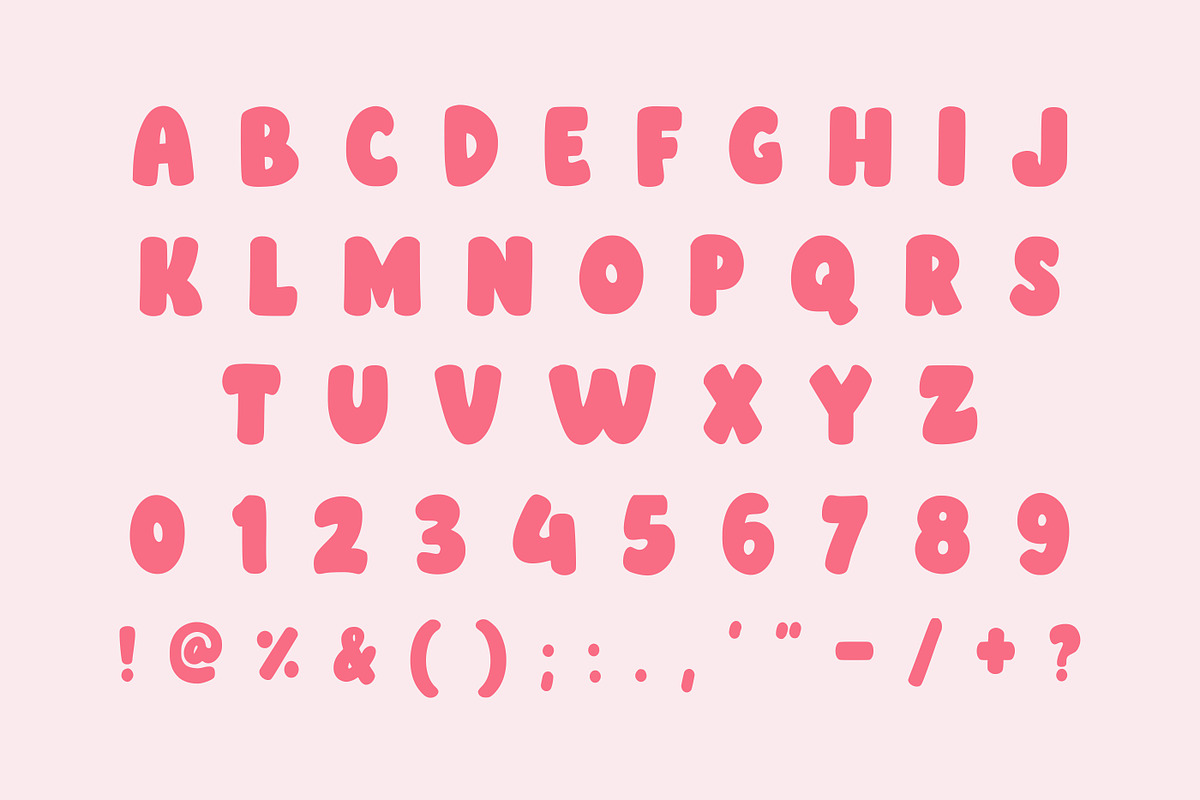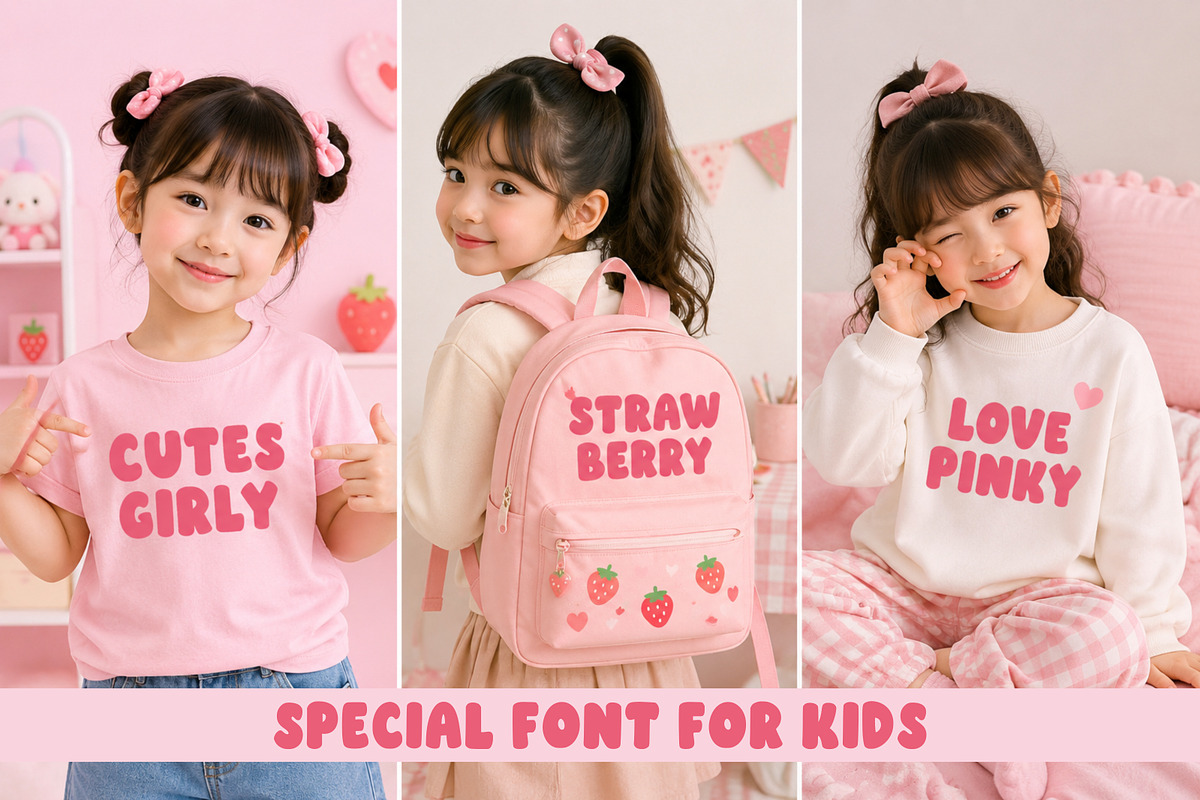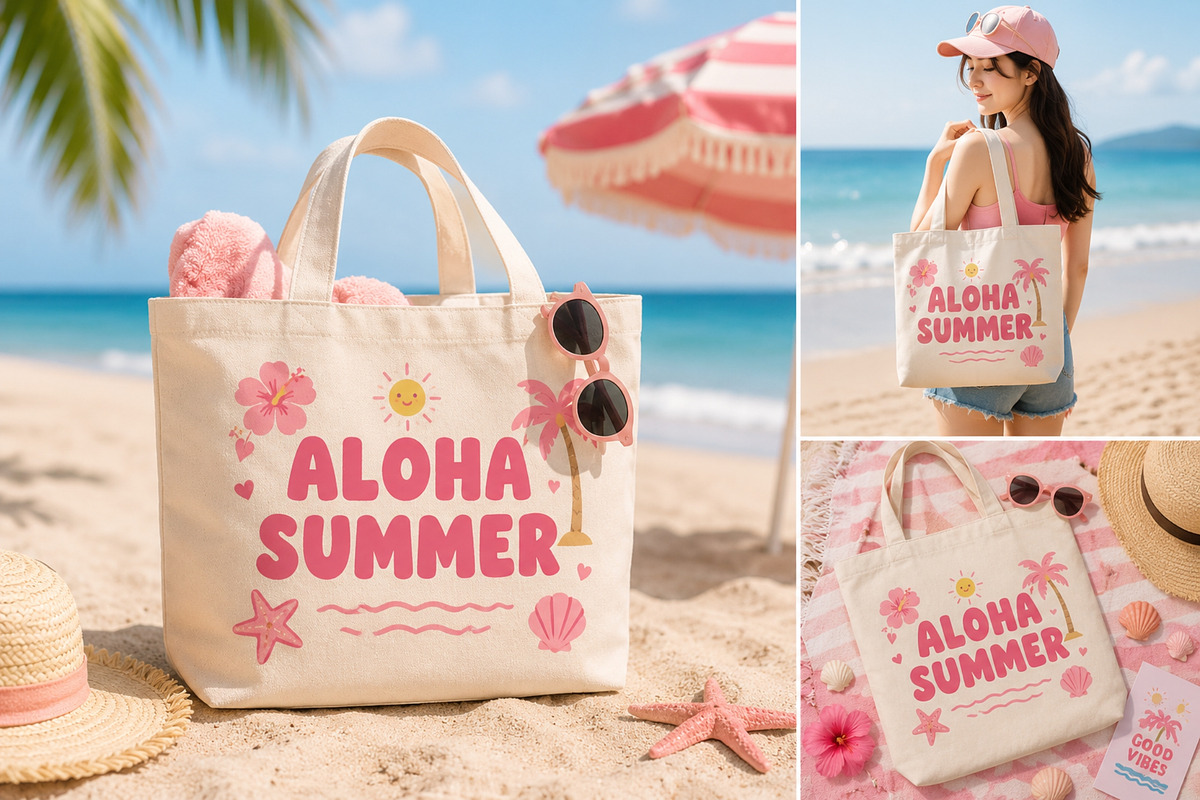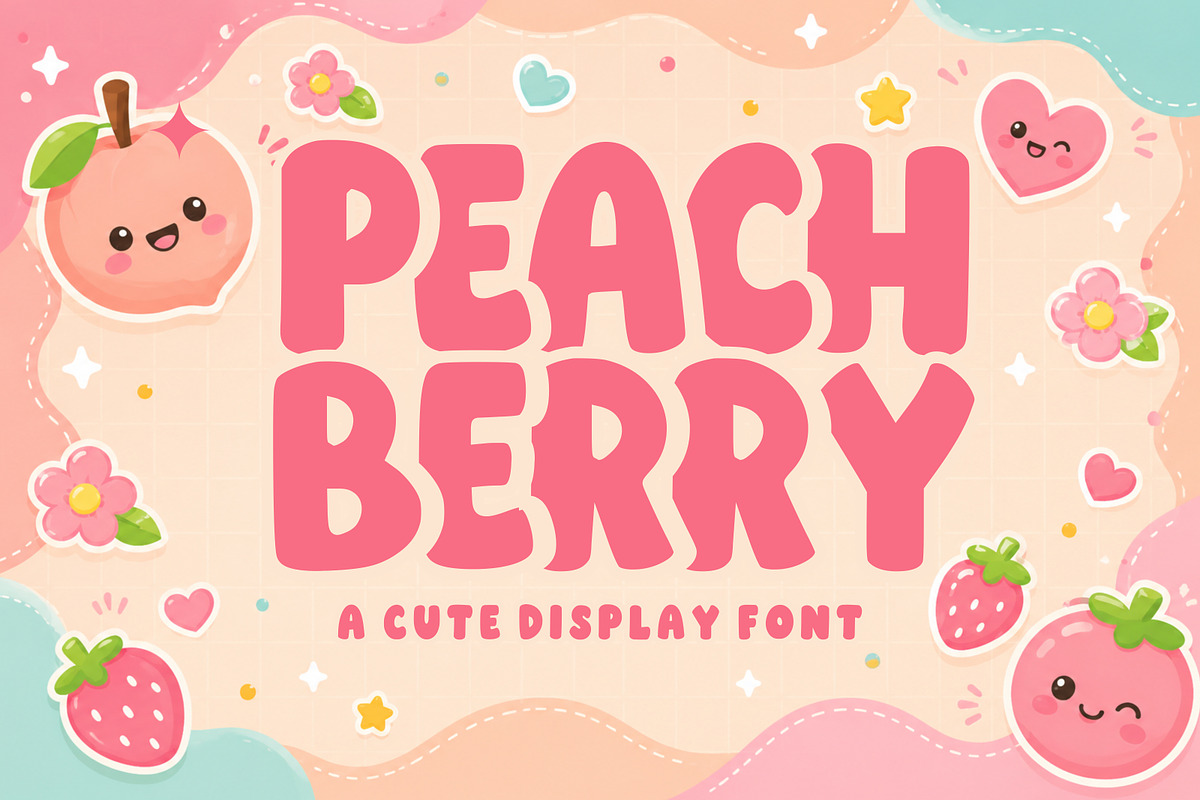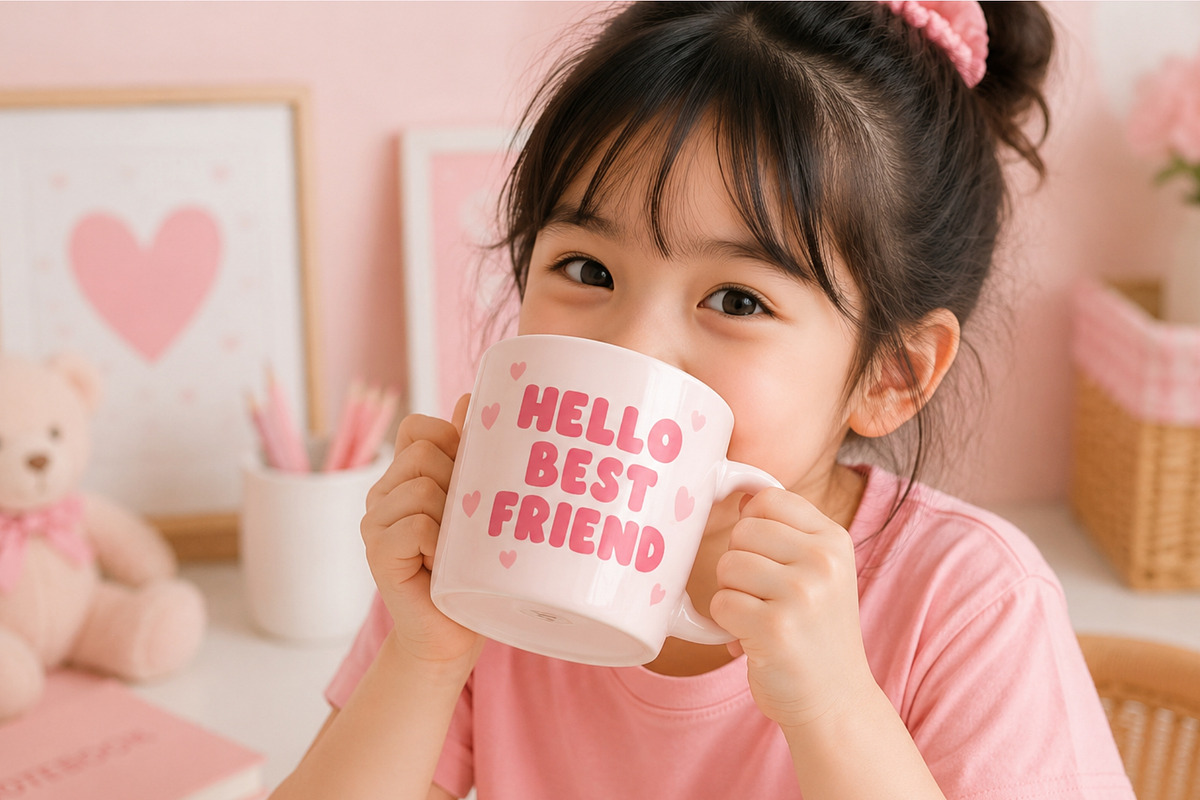
Peach Berry
Meet Peach Berry, a delightful display font designed to bring sweetness and fun into your creative projects. With its bold rounded shapes and bubbly personality, this font is ideal for playful branding, kids' products, merchandise, packaging, greeting cards, social media graphics, and craft designs.
Its soft curves and friendly appearance make Peach Berry perfect for designers looking to create eye-catching visuals with a modern cute aesthetic.
Bold Bubble Display Style
Cute & Playful Character
Ideal For
Children's Books
Toy Packaging
Apparel Design
T-Shirts & Hoodies
Tote Bags
Stickers
Logos
Branding
Posters
Birthday Cards
Sublimation
Cricut Projects
DIY Crafts